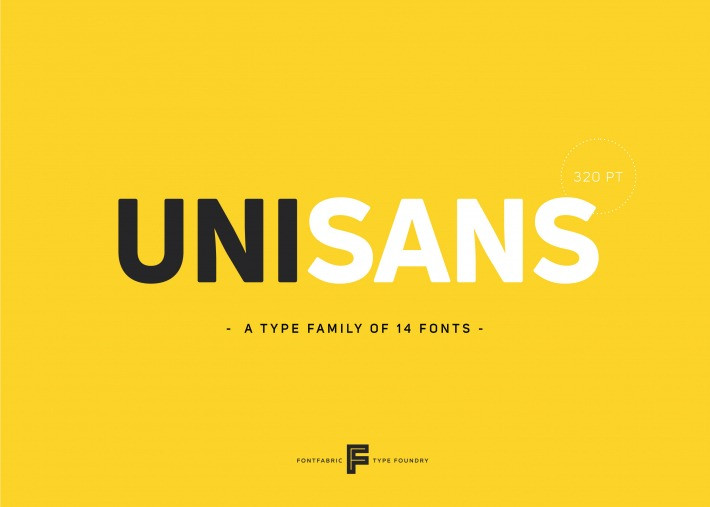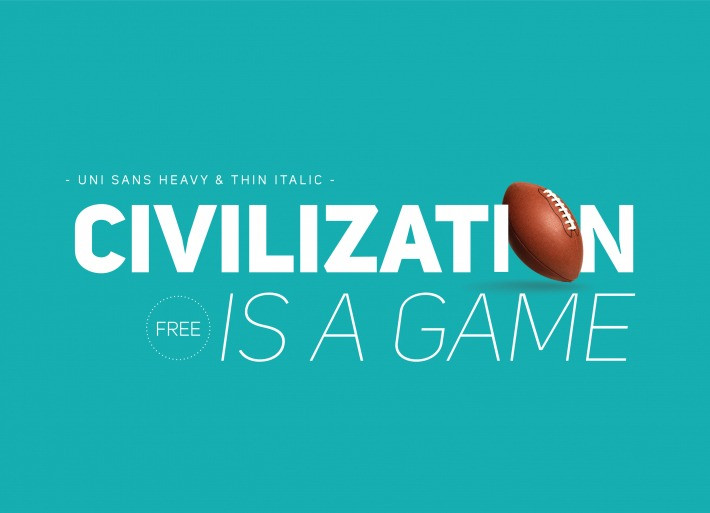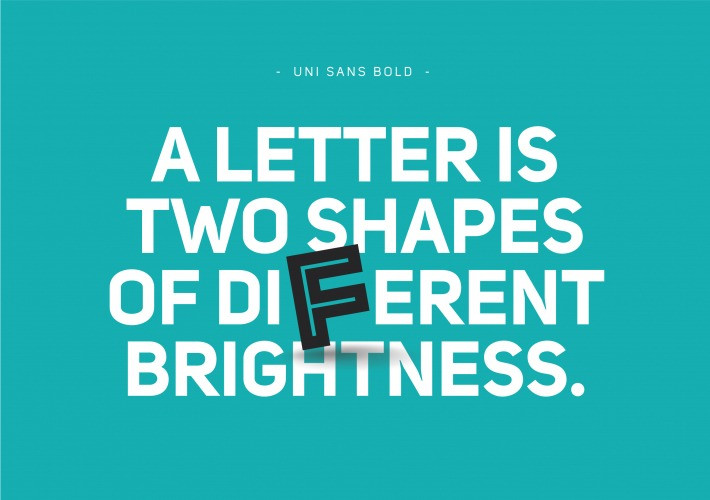
Uni Sans Font
It’s a modern Geometric Grotesk sans serif, Developed with geometric forms that have been optically corrected for better legibility. Launching your new brand or creating a new user interface for your mobile devices – selecting characteristic typeface for a brand and advertising is just as important as using the right font for app design, magazine or editorial – typography is always the essential part.